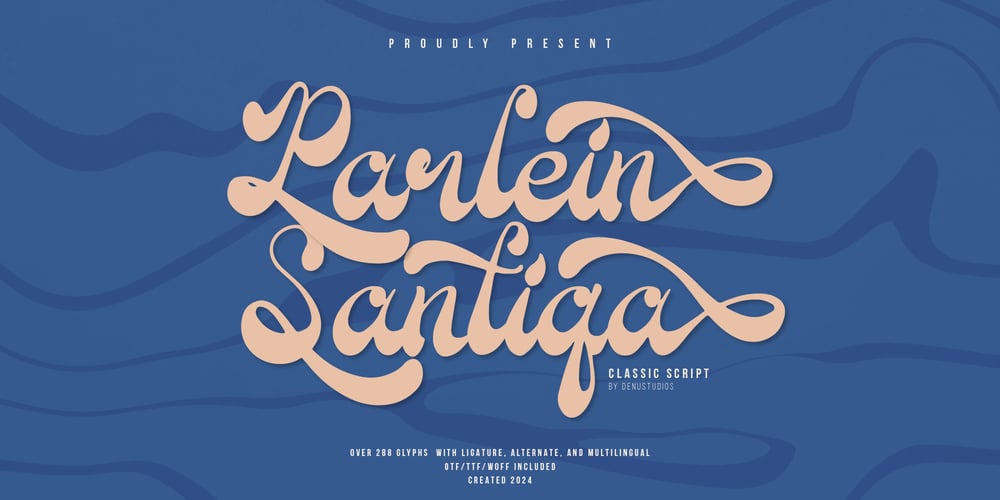
Parlein Santiqa
Parlein Santiqa font
Parlein Santiqa Font Family was designed by Dede Nugraha and published by Denustudio. Parlein Santiqa contains 2 styles and family package options. Parlein Santiqa | Classic Script, from Denustudios, suitable for any projects such as: logos, branding projects, homeware designs, product packaging, mugs, quotes, posters, shopping bags, t-shirts, book covers, name card, invitation cards, greeting cards, label, photography, watermark, special events, and all your other lovely projects that need a beautiful script taste.===========================================================================What’s Included : Regular and Italic Web Font Standard glyphs Alternate and Ligature Works on PC & Mac Simple installations Accessible in the Adobe Illustrator, Adobe Photoshop, Adobe InDesign, even work on Microsoft Word and Other Software. PUA Encoded Characters – Fully accessible without additional design software. Fonts include multilingual support Hope you enjoy with our font!